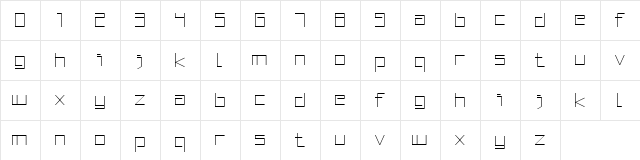
Squared Display Regular
| Foundry | Vikas Kumar |
| Designer | Vikas Kumar |
Design Context for Squared Display Typeface
Squared Display is built around its visual character rather than neutral utility — its distinctive forms are designed to make an impression at display sizes.
Font Pairing: Pair with a clean neutral sans-serif for body copy to let Squared Display's character lead without overwhelming the composition.
Pro Tip: Treat Squared Display as the centrepiece of your typographic hierarchy. One strong heading set in a decorative face can carry an entire layout.